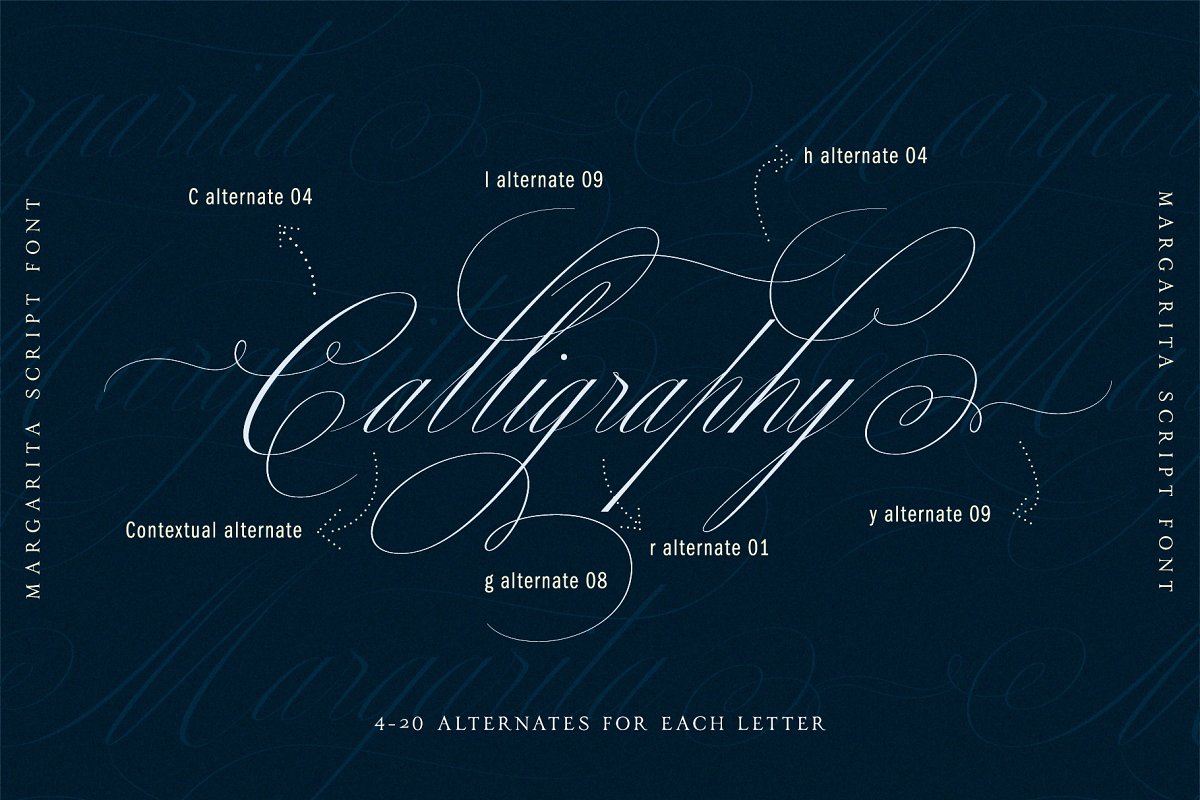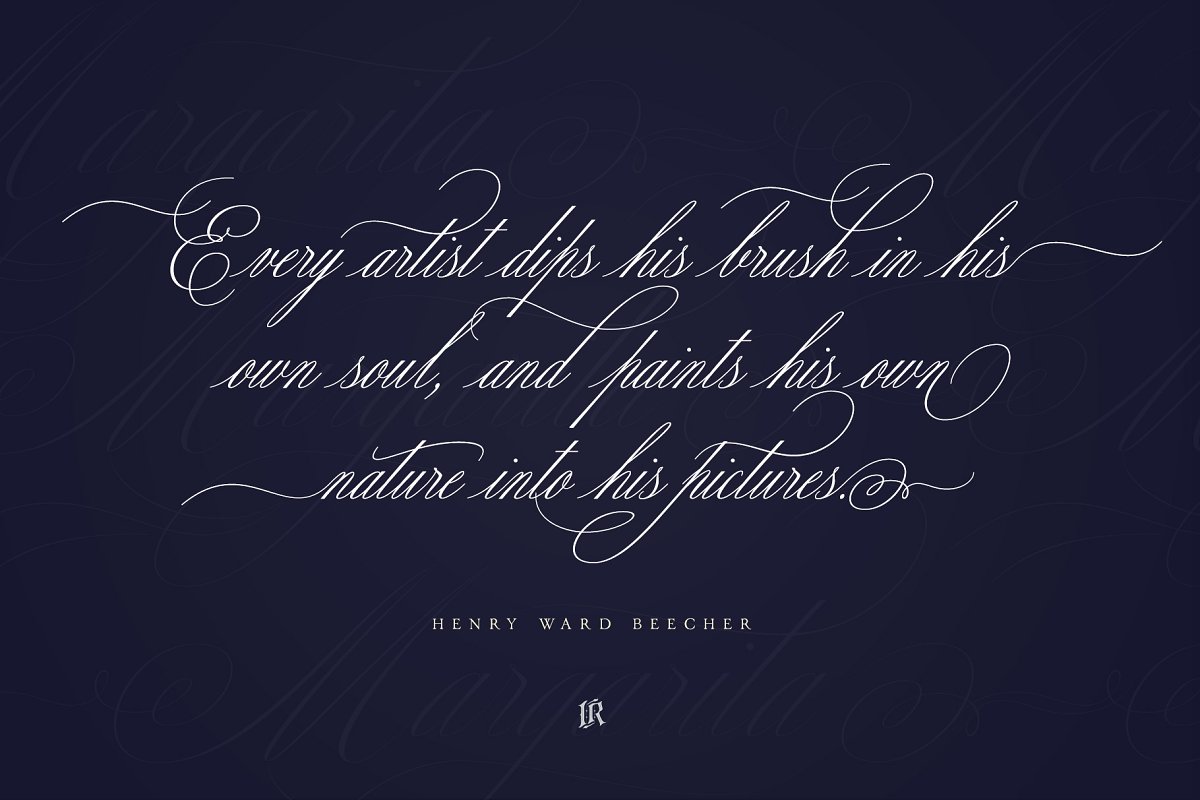
About the Margarita Pro Font
Margarita Pro Font is formal script font family with multilingual support, lot of punctuation glyphs and up to 20 alternates, Is ideal for wedding invitations, magazines, social media, restaurant menus, greeting cards, birthday invitations, headers and many more, Margarita Pro font comes with a complete set of lowercase and uppercase characters, a large range of alternates, numerals and and multilingual support